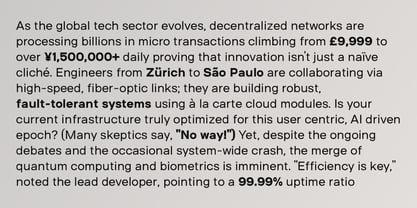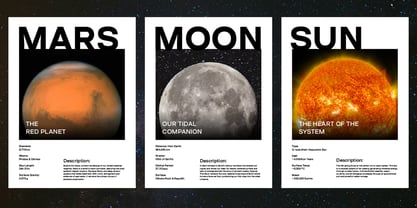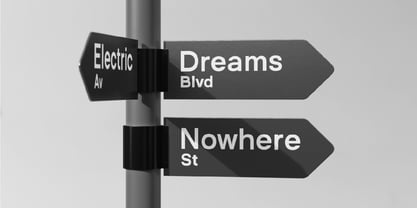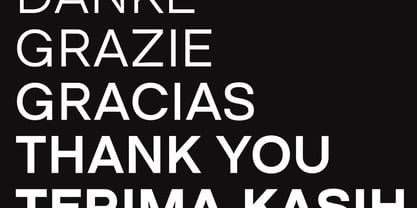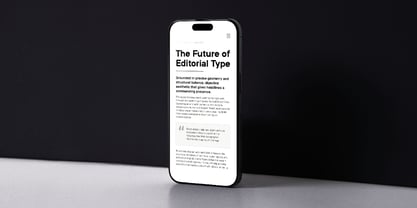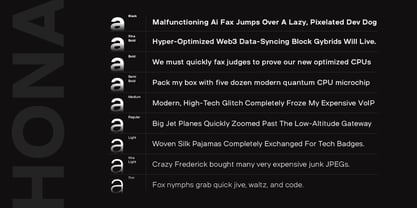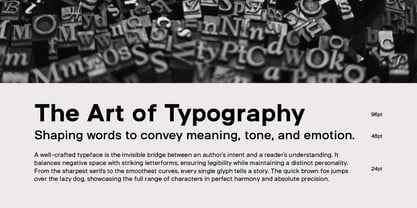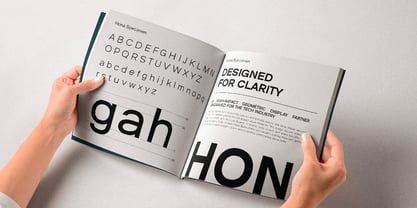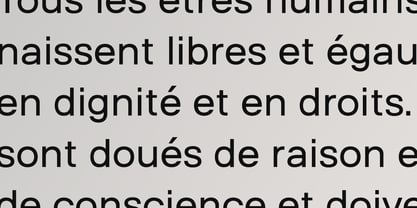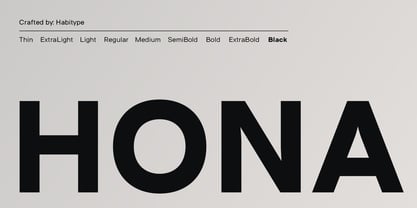
Hona
by Habitype
The Hona Font Family was designed by Fahrul Saputra and published by Habitype. Hona contains 9 styles and family package options. More about this family
Hona is a clean, highly adaptable sans serif designed specifically for the demands of modern design. The perfect balance between functional readability and bold presence, this typeface is crafted to elevate contemporary branding, UI design, and editorial layouts.
Available in an expansive family of 9 weights, Hona provides designers with a complete and versatile typographic toolkit.
Use the mid and lighter weights for crisp, high-legibility body text, and use the heavier weight to attract attention in commanding headlines, striking logos, and standout display typography.
Designers: Fahrul Saputra
Foundry: Habitype